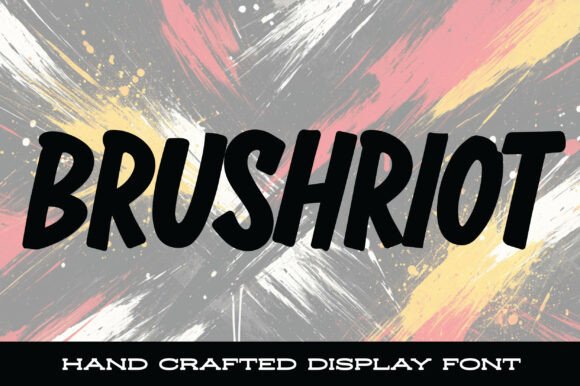
The Rebellious Charm of Brushriot Font: A Designer’s Delight
I still remember the design project that led me to discover Brushriot Font. I was working on a bold branding campaign for a local skate shop, and I needed a font that could capture the raw energy and fearless attitude of the brand. After hours of scrolling through font libraries and trying out different combinations, I stumbled upon Brushriot – and it was love at first sight! ✨
With its hand-brushed texture and unapologetic vibe, Brushriot instantly resonated with the client’s vision. Every stroke felt fast, textured, and alive, as if it was painted in one bold, decisive sweep. I knew right then that I had found the perfect fit for the project.
An Honest Review of Brushriot Font
What I Love About Brushriot
• ✨ Authentic brush character: Brushriot brings a level of grit and texture that’s hard to find in digital fonts.
• ✅ Highly versatile: From logos and posters to apparel and packaging, Brushriot can handle it all.
• 💥 Emotional impact: This font doesn’t whisper – it shouts, making it perfect for brands that want to make a statement.
• 🔍 OpenType features: Brushriot comes with a range of stylistic alternates and glyphs to help you customize your text.
While Brushriot is an amazing font, it’s not without its quirks. Here are a few things to keep in mind:
• ⚠️ Legibility at small sizes: Brushriot can get a bit tricky to read at smaller font sizes, so make sure to test it out before committing to a specific size.
• 🤔 Pairing with other fonts: Due to its bold and expressive nature, Brushriot can be a bit challenging to pair with other fonts. Experiment with different combinations to find the perfect match.
Similar Fonts or Alternatives to Brushriot
If you’re looking for similar fonts or alternatives to Brushriot, here are a few options:
• Bebas Neue: A bold, modern sans-serif font with a similar level of grit and texture.
• Great Vibes: A script font with a hand-brushed feel and a more elegant, cursive vibe.
• Museo: A sophisticated, high-end font with a similar level of texture and visual interest.
• Oswald: A bold, versatile font with a similar level of grit and texture, but with a more traditional feel.
The Backstory of Brushriot Font
Brushriot was designed by a team of creatives who wanted to capture the raw energy and emotion of hand-brushed typography. Inspired by the rebellious spirit of street art and graffiti, they set out to create a font that would bring a level of authenticity and grit to digital design. The result is Brushriot – a fearless, unapologetic font that’s perfect for brands that refuse to play it safe.
Q: What is Brushriot Font best suited for?
A: Brushriot Font is best suited for bold branding, logos, posters, apparel, packaging, and any project that requires a high level of energy and emotion.
Q: Is Brushriot Font available in different weights or styles?
A: Brushriot Font comes in a range of styles and weights, allowing you to experiment with different variations and find the perfect fit for your project.
Q: Can I use Brushriot Font in both digital and print projects?
A: Absolutely! Brushriot Font is designed to work beautifully in both digital and print projects, making it a versatile addition to your font library.